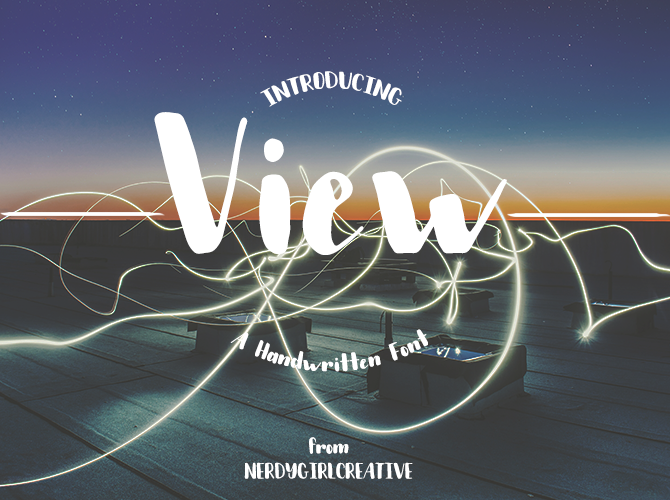
View - Handwritten Font
It is finally here!! Introducing VIEW a new handwritten font from the creative minds at nerdygirlcreative. It is an irregular sans-serif font that gives a beautiful handwritten feel. Perfect for logos, typographic quotes over photos, branding, invitations, greeting cards, book covers and packaging design. Possibilities are endless! Create something Amazing!!